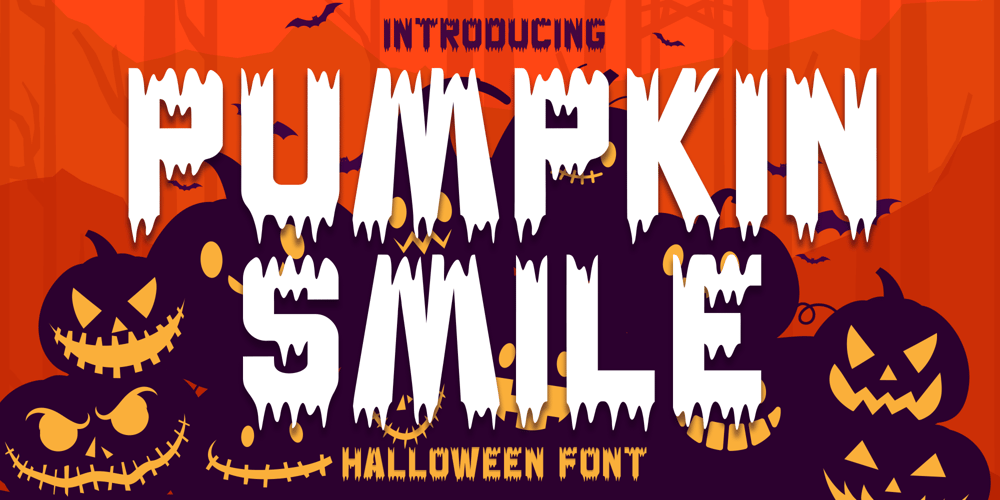
Pumpkin Smile
Pumpkin Smile font
Pumpkin Smile Font Family was designed by Alif Ryan Zulfikar and published by Sakha Design. Pumpkin Smile contains 2 styles and family package options. Pumpkin Smile is a spooky and cool-looking display font. No matter the topic, this font will be an incredible asset to your fonts’ library, as it has the potential to elevate any creation.